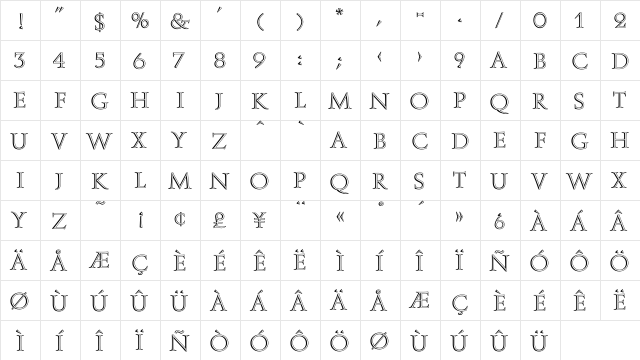
AugusteaOpenPlain Regular
Design Context for AugusteaOpenPlain Typeface
AugusteaOpenPlain takes a measured approach to typography — its balanced proportions and neutral character make it a reliable workhorse for both digital and print work.